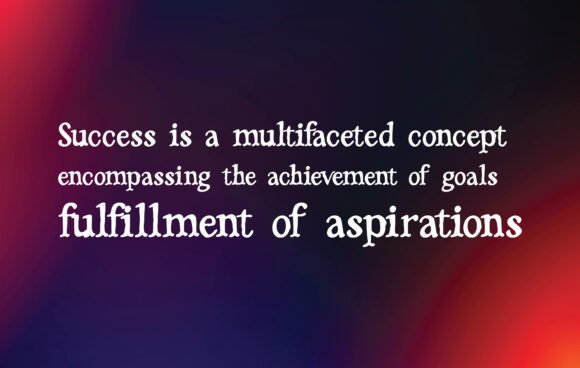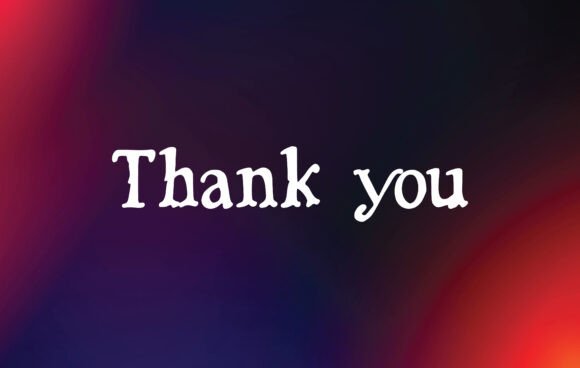
Introduction to Easton Font
Easton is a lovely and beautiful handwritten font.
Key Features of Easton Font
Why Choose Easton Font?
Easton Font offers exceptional quality and versatility, making it a valuable addition to your design toolkit. Whether you’re creating for personal projects or commercial use, Easton Font delivers professional results.